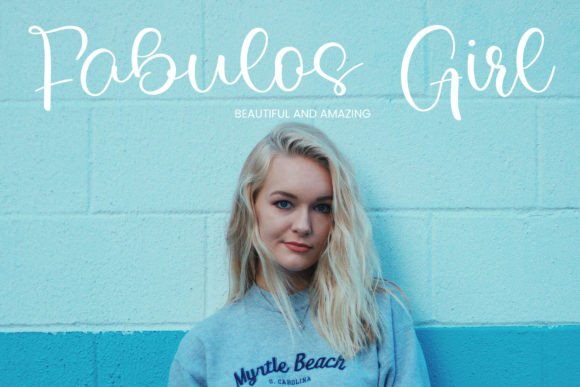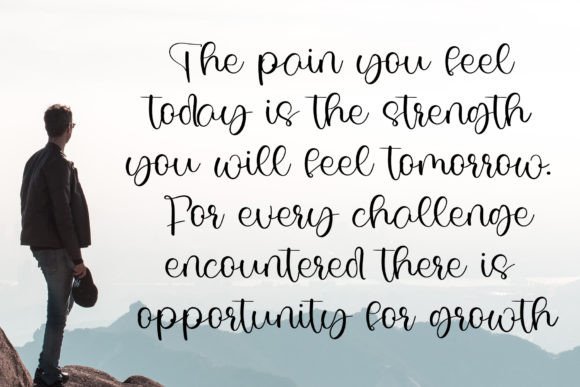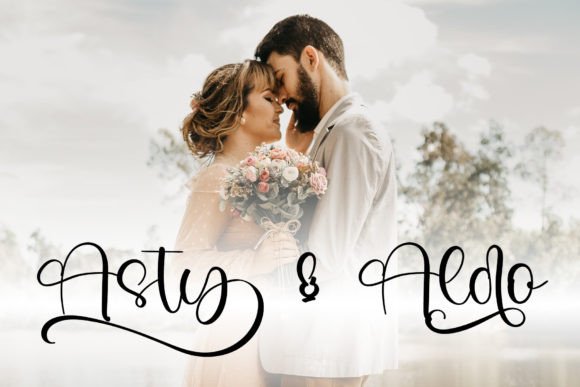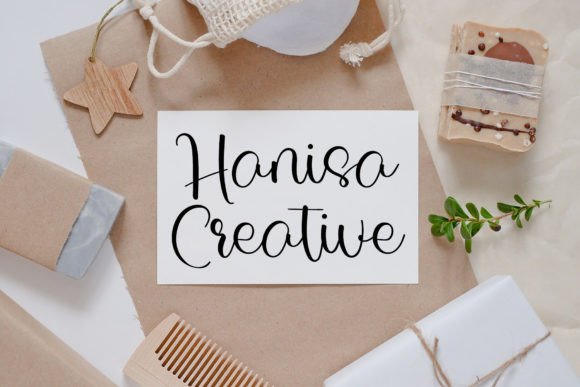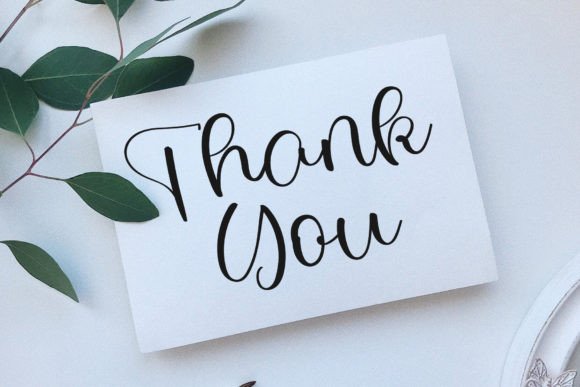
Introducing Growly Font: Elevate Your Designs with a Stylish and Modern Handwritten Touch
In the world of design, fonts play a crucial role in conveying the tone and personality of a project. Whether you’re working on a greeting card, headline, branding campaign, or packaging design, the right font can make all the difference. If you’re looking for a stylish and modern handwritten font that can add a touch of happiness to your creations, look no further than Growly Font.
What is Growly Font?
Growly Font is a beautiful, modern handwritten font that is suitable for a wide spectrum of applications. Its stylish and elegant design makes it perfect for designers and crafters who want to add a personal touch to their projects. From greeting cards to headlines, branding and packaging, Growly Font is the perfect choice for anyone looking to create something special.
Key Features of Growly Font
• PUA Encoded: Growly Font is PUA encoded, which means you can access all of the amazing glyphs and ligatures with ease. This makes it easy to use and customize, even for those without extensive design experience.
• Handwritten Style: Growly Font features a beautiful, handwritten style that is both elegant and playful. Its modern design makes it perfect for a wide range of projects, from formal to informal.
• Wide Range of Applications: Growly Font is suitable for a wide spectrum of applications, including greeting cards, headlines, branding and packaging, and more.
Benefits of Using Growly Font
So why choose Growly Font for your next project? Here are just a few benefits of using this stylish and modern handwritten font:
• Adds a Personal Touch: Growly Font adds a personal touch to your projects, making them stand out from the crowd.
• Versatile: Growly Font is versatile and can be used for a wide range of projects, from formal to informal.
• Easy to Customize: Growly Font is easy to customize, allowing you to create unique and personalized designs.
• High-Quality Design: Growly Font features a high-quality design that is both elegant and playful.
Growly Font is a stylish and modern handwritten font that is perfect for designers and crafters who want to add a personal touch to their projects. With its PUA encoded design, handwritten style, and wide range of applications, Growly Font is the perfect choice for anyone looking to create something special. Whether you’re working on a greeting card, headline, branding campaign, or packaging design, Growly Font is sure to bring a touch of happiness to your creations.